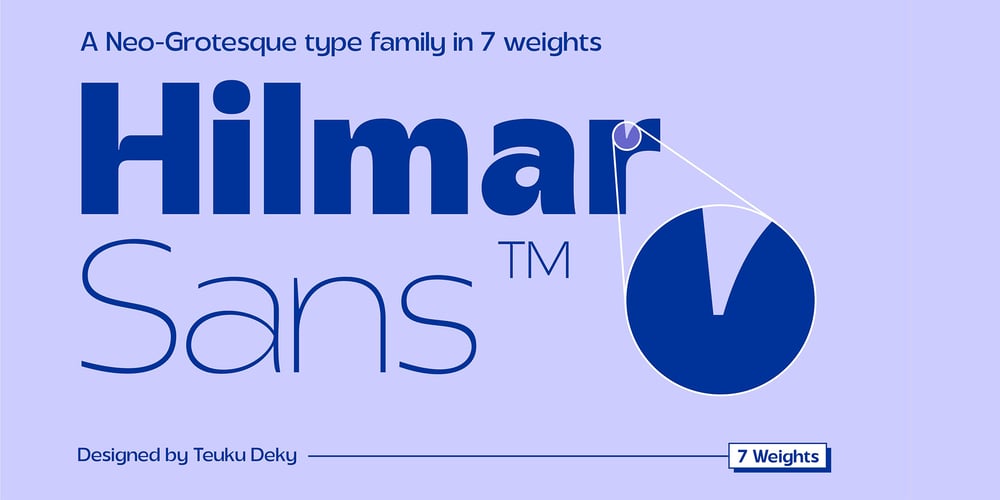
Hilmar Font Family was designed by Teuku Deky Firnanda and published by Graptail. Hilmar contains 7 styles and family package options. Hilmar Sans is a neo-grotrsque typeface family in 7 weights, support most European Languages and features. The typeface is versatile to blend in your design- with 7 weight, ranging from thin, extra light, light, regular, medium, semi bold, bold variable type. Perfect anywhere you need a right finas touches for branding, publishing, titles, book, magazine , and use on UI/UX design.The typeface is versatile to blend in your design- with 7 weight, ranging from thin, extra light, light, regular, medium, semi bold, bold variable type. Perfect anywhere you need a right finas touches for branding, publishing, titles, book, magazine , and use on UI/UX design.